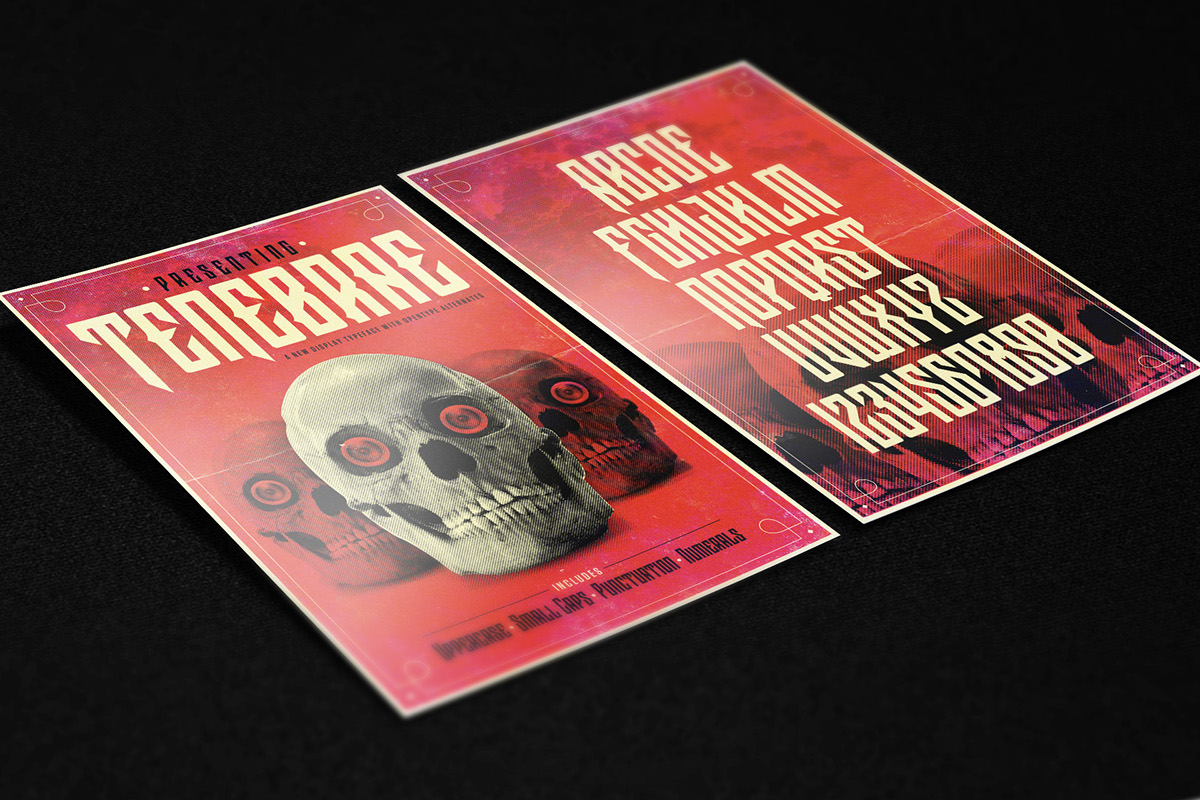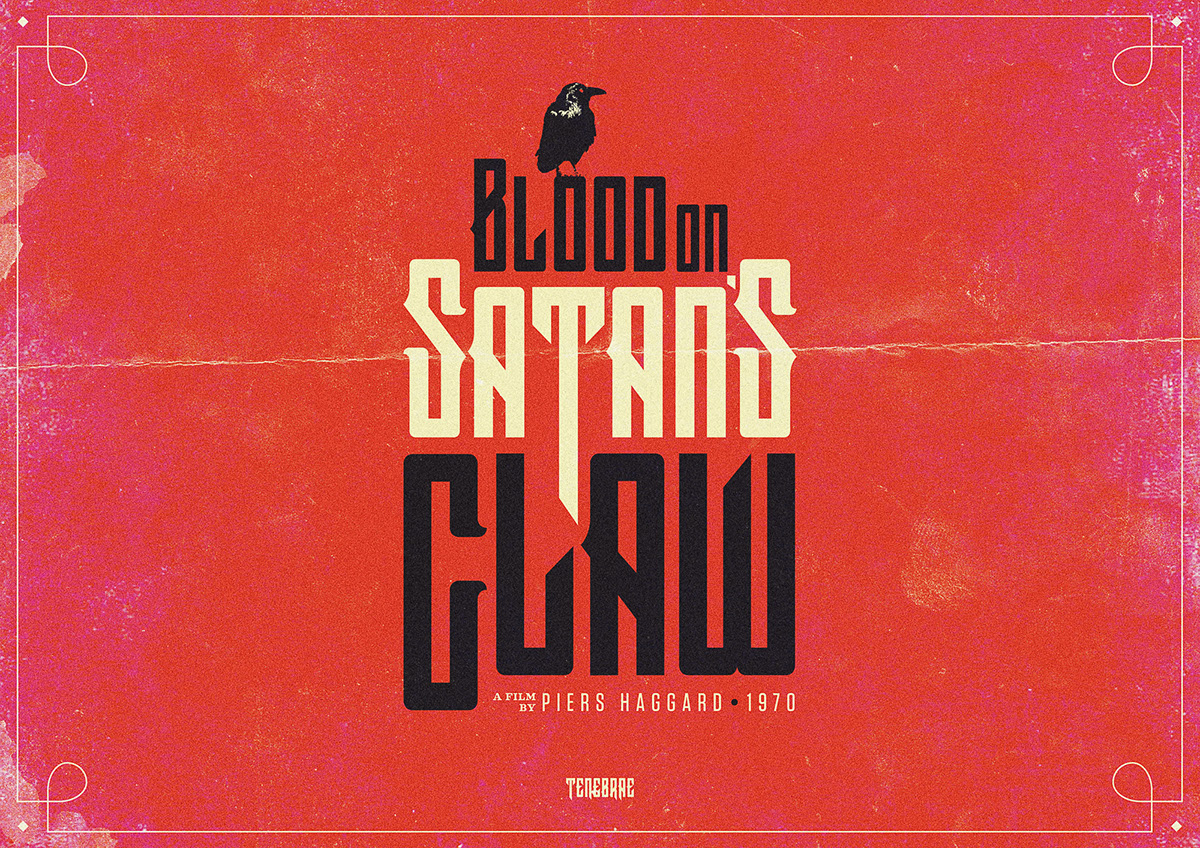
Tenebrae
Tenebrae Font
Tenebrae is inspired by the Giallo films of the 70s and other cult cinema film posters. Whilst these are Tenebrae’s origins it still retains a modern edge making it equally at home in vintage settings as well as more modern ones. Tenebrae has titling alternates which gives it a more stylised character.